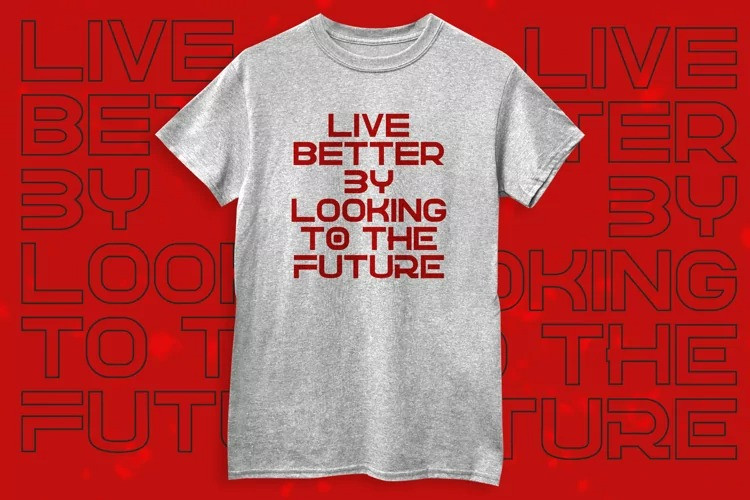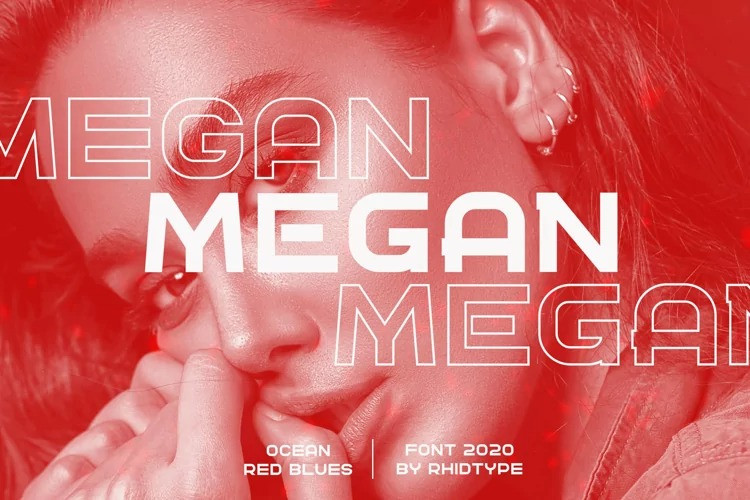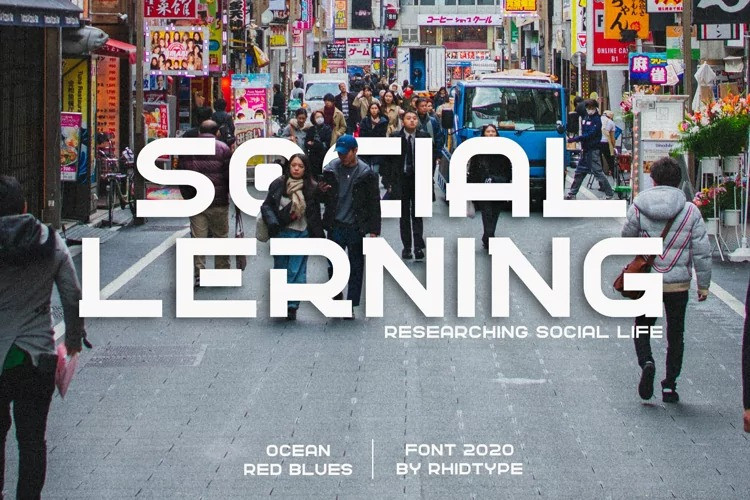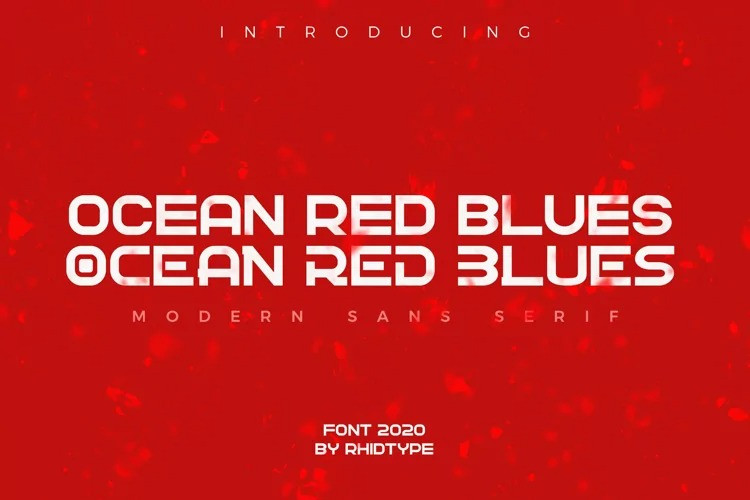
Ocean Red Blues Font
Ocean Red Blues Sans Serif Font
This is a modern sans serif display all caps font from designer RHID TYPE. Ideally suited for a space mood, future tech and innovative products great for big titles and small subtexts. Combine with images to really wow them humans.